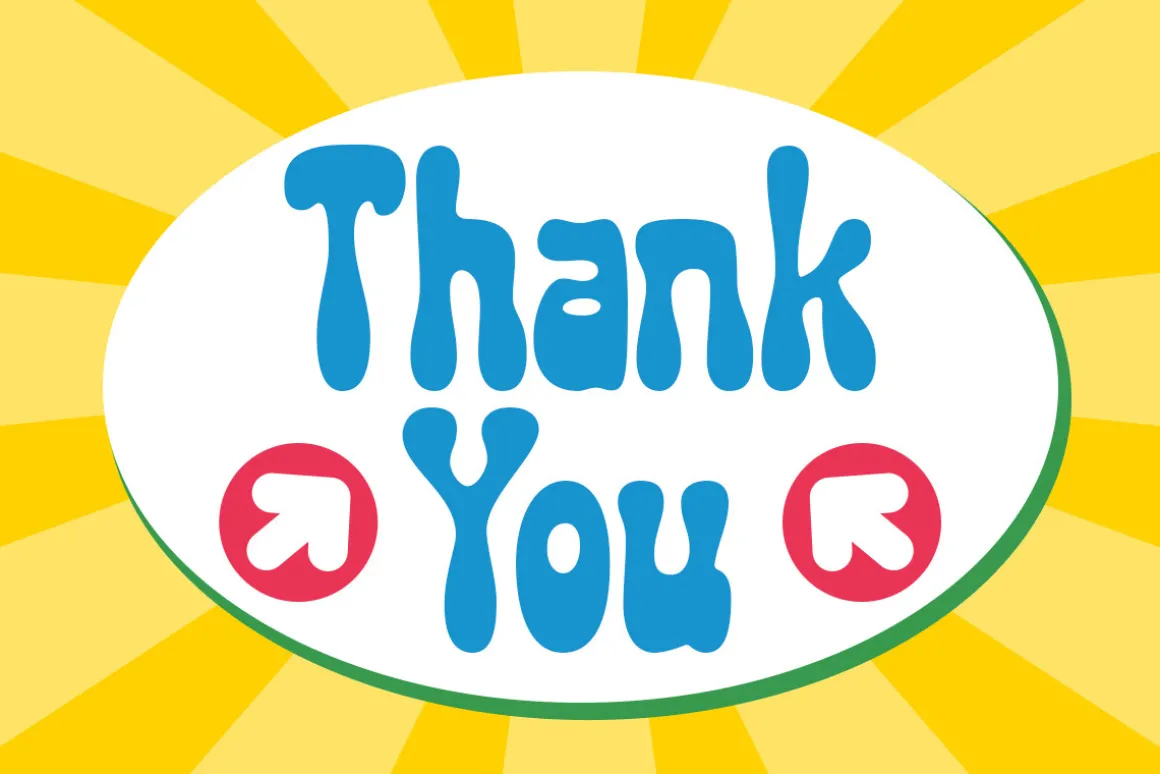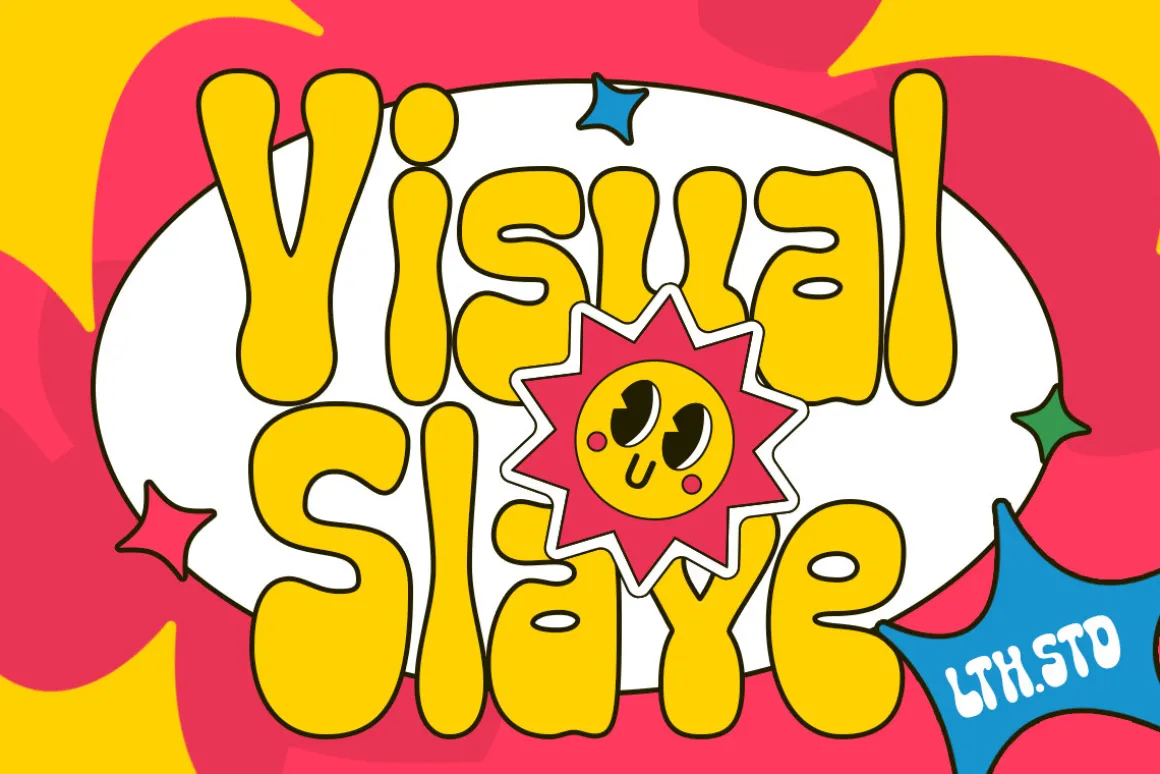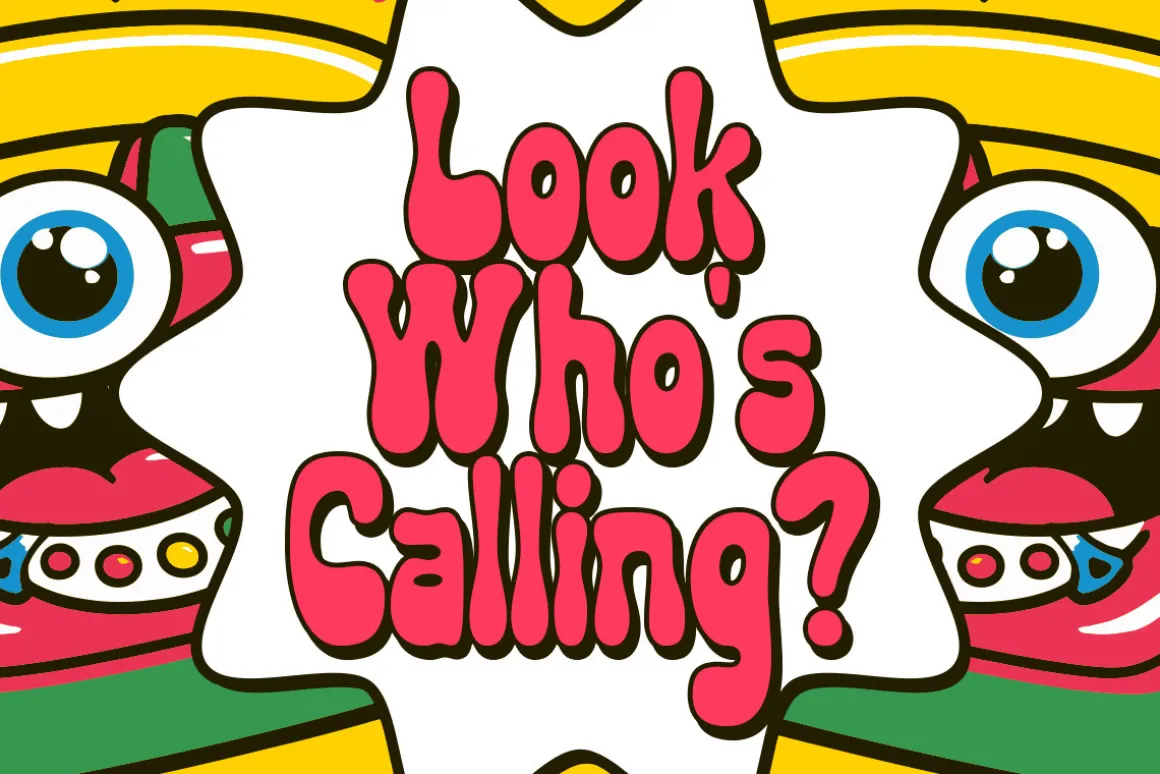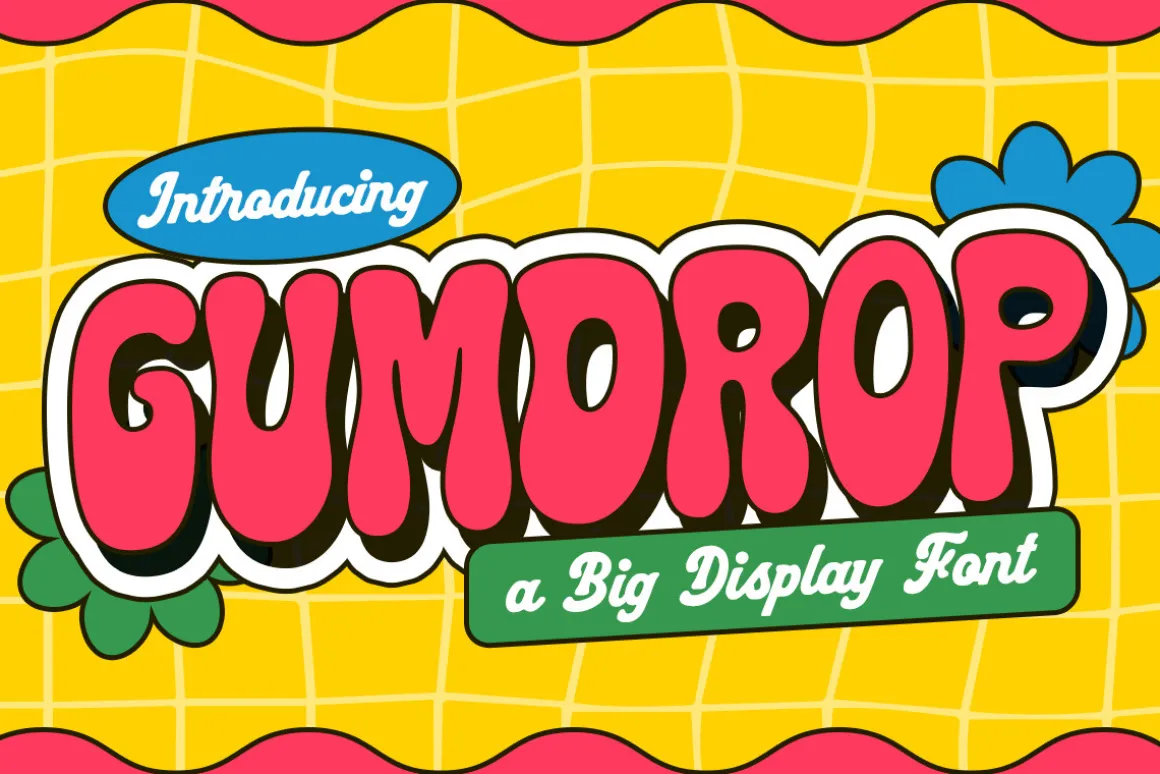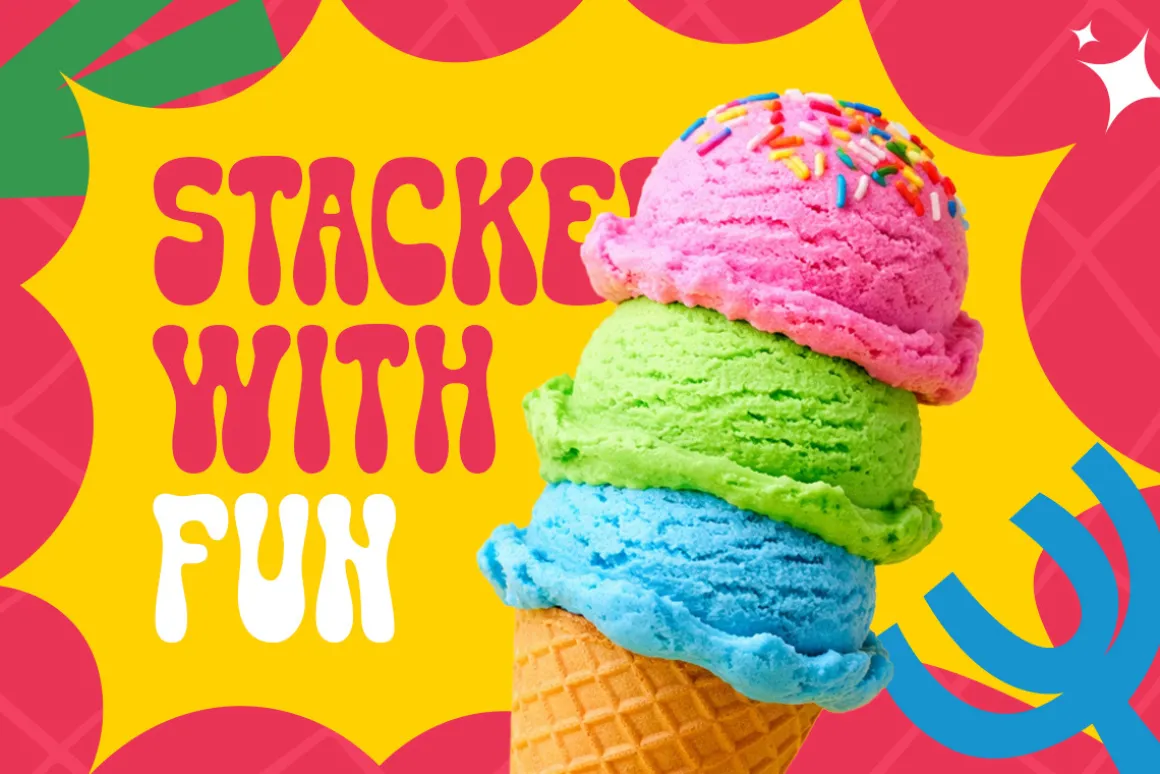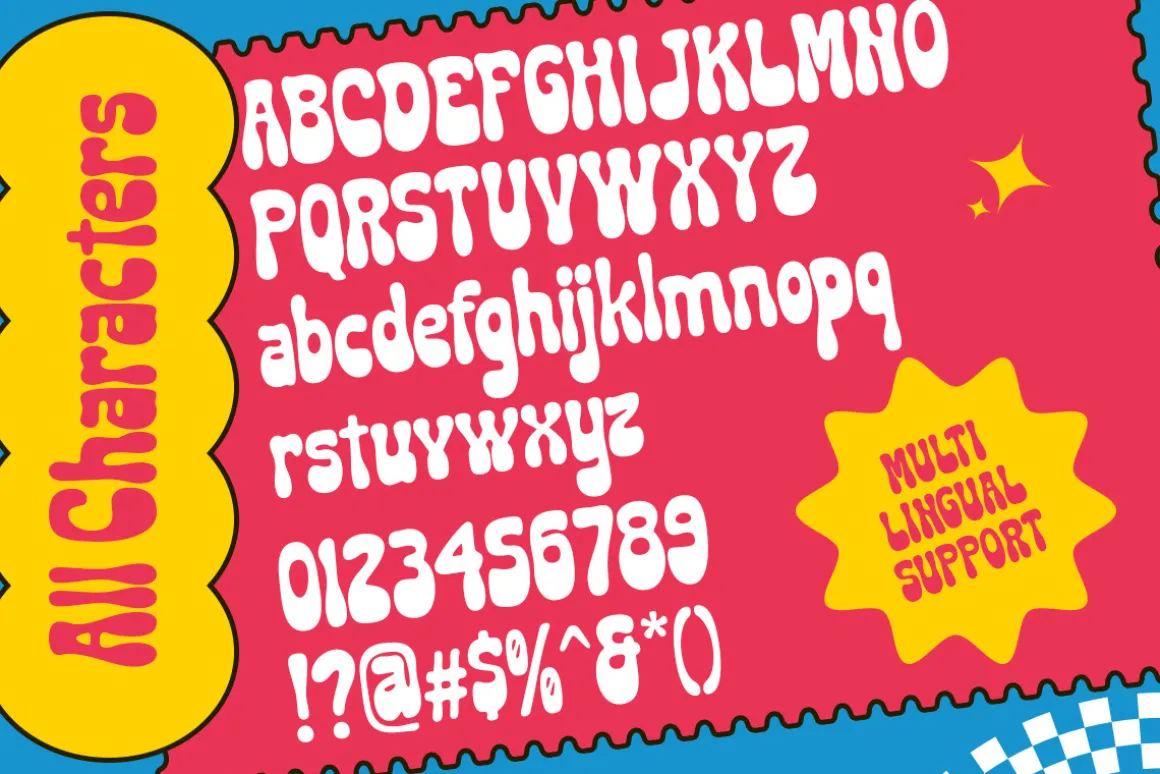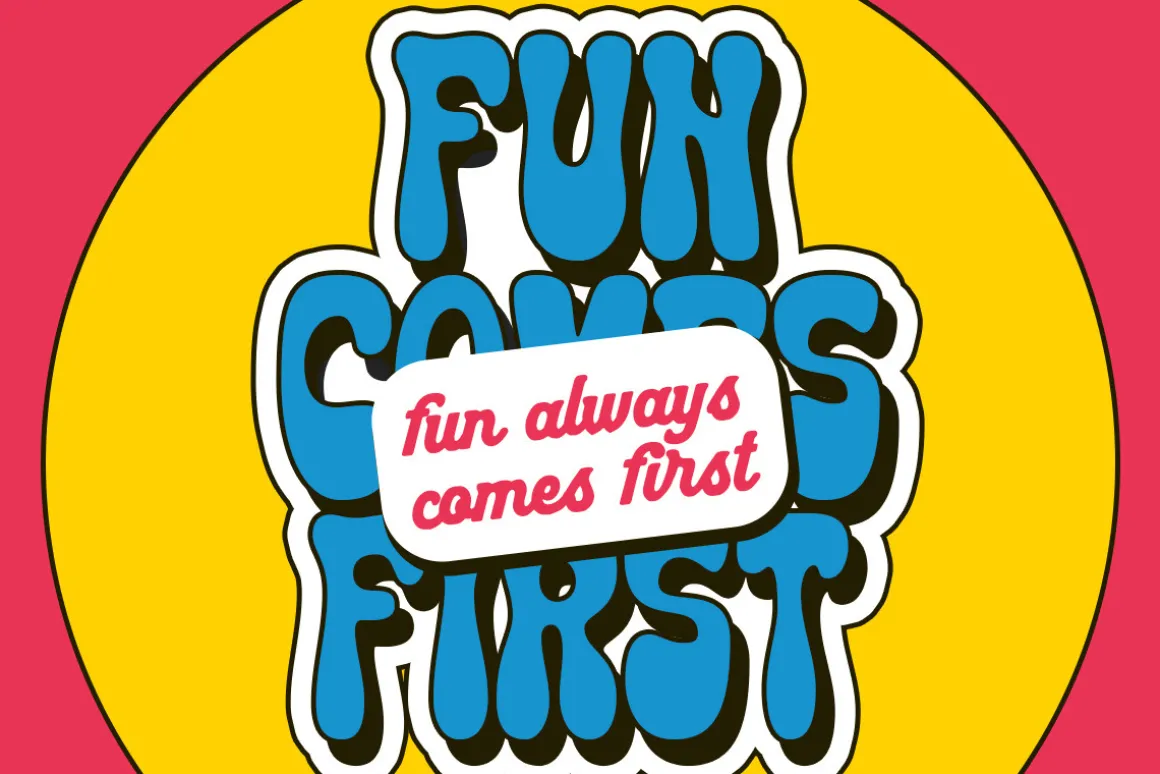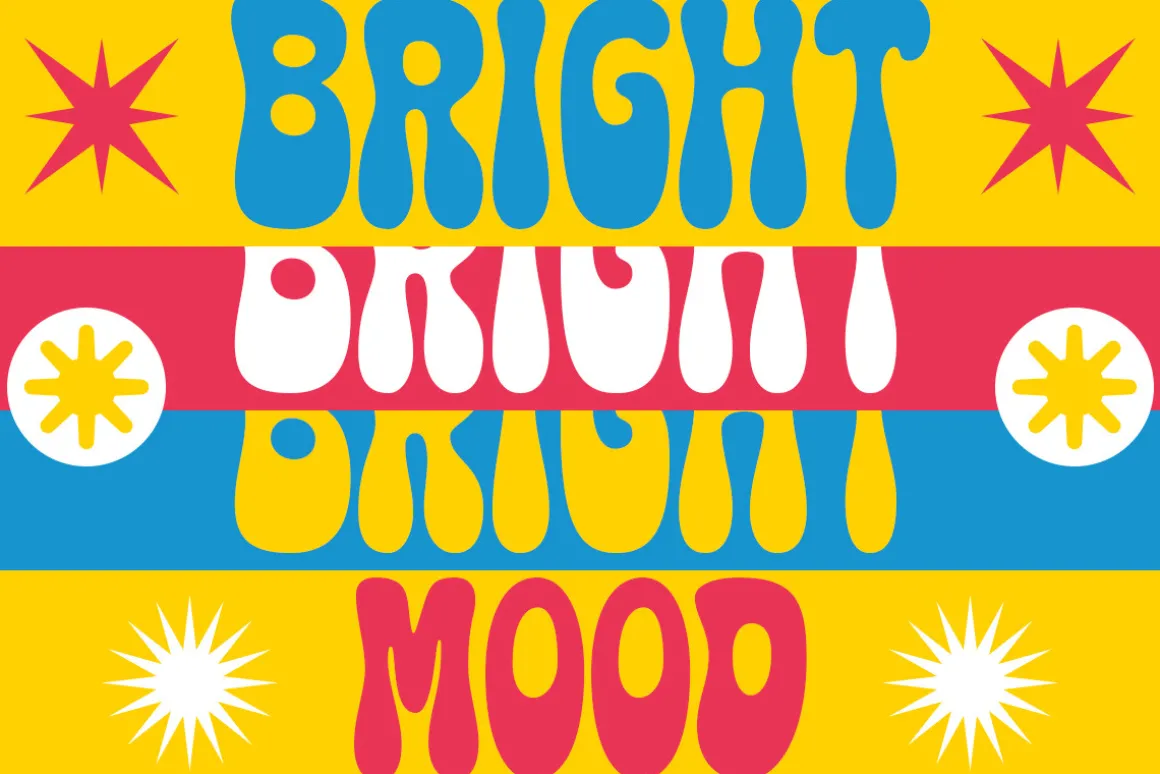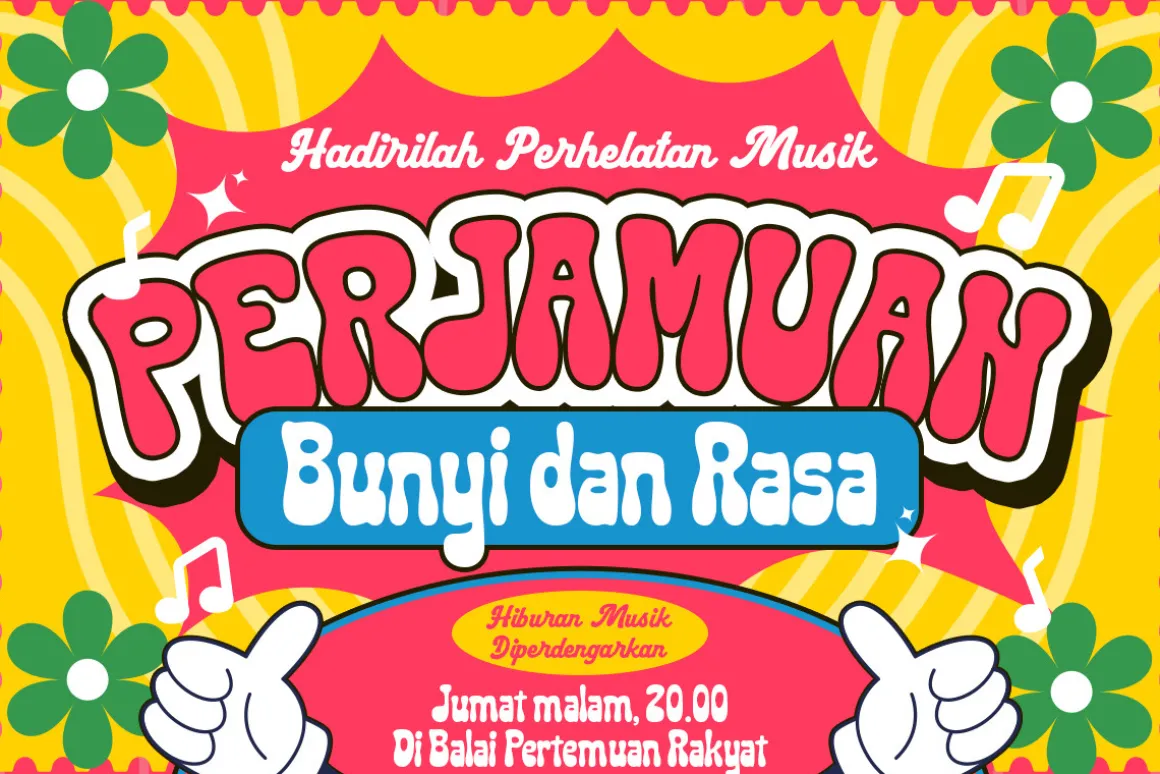
Gumdrop is a display font that features thick strokes and bubbly forms, creating a strong and joyful presence. the look feels retro-inspired, cool, and full of energy, making it perfect for attention-grabbing designs. ideal for headlines, posters, packaging text, stickers, and colorful visuals that need a happy and standout tone.
- Uppercase & lowercase
- Numbers and punctuation
- Multilingual Support